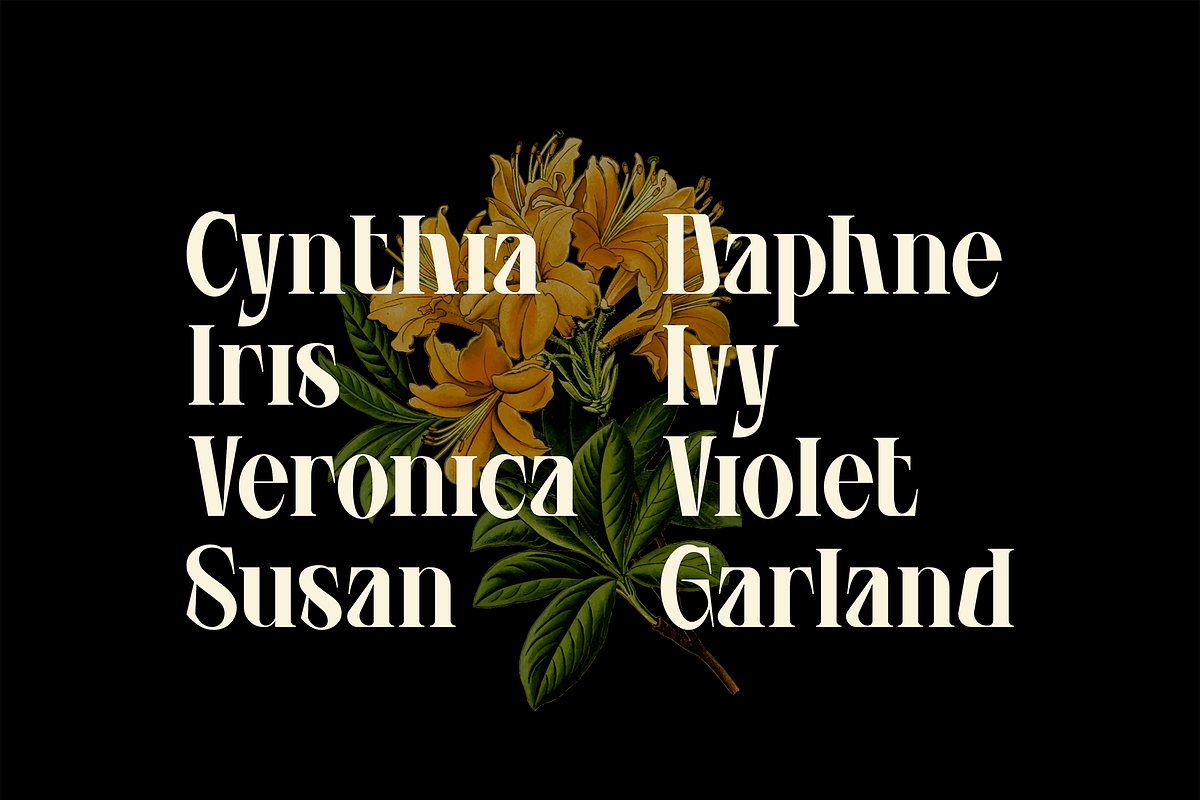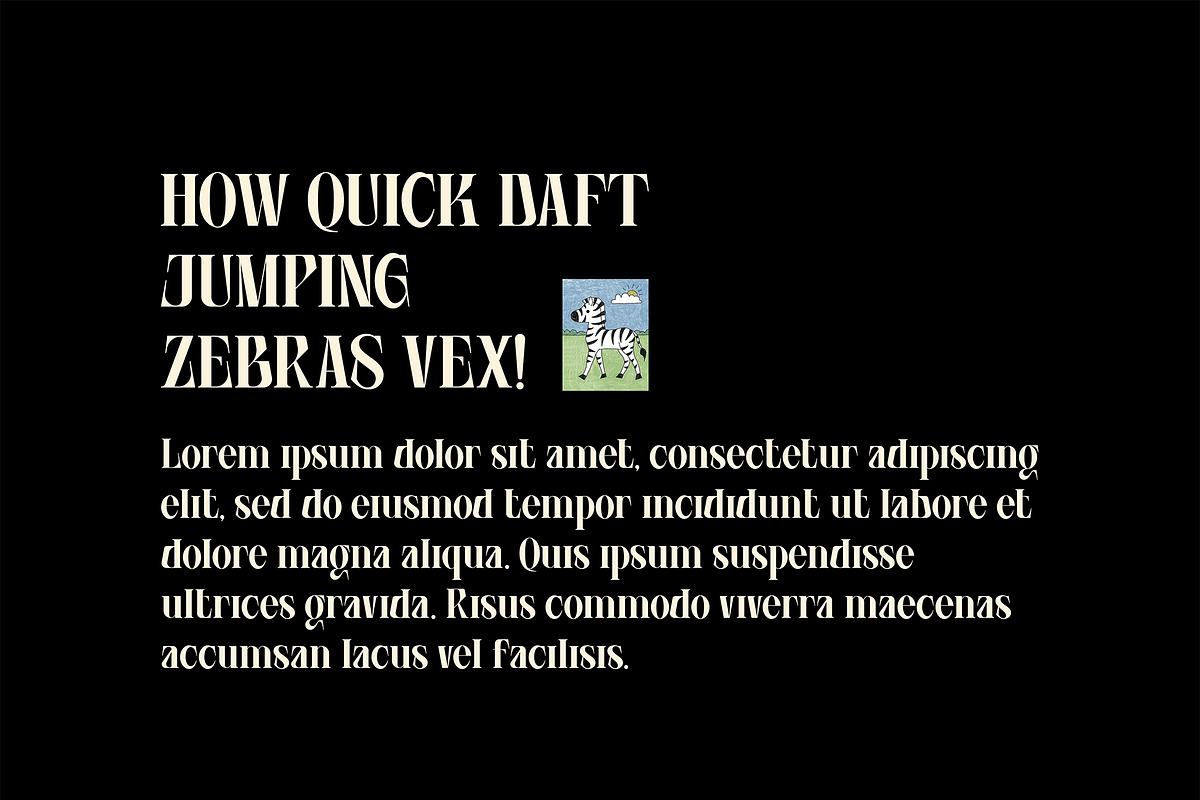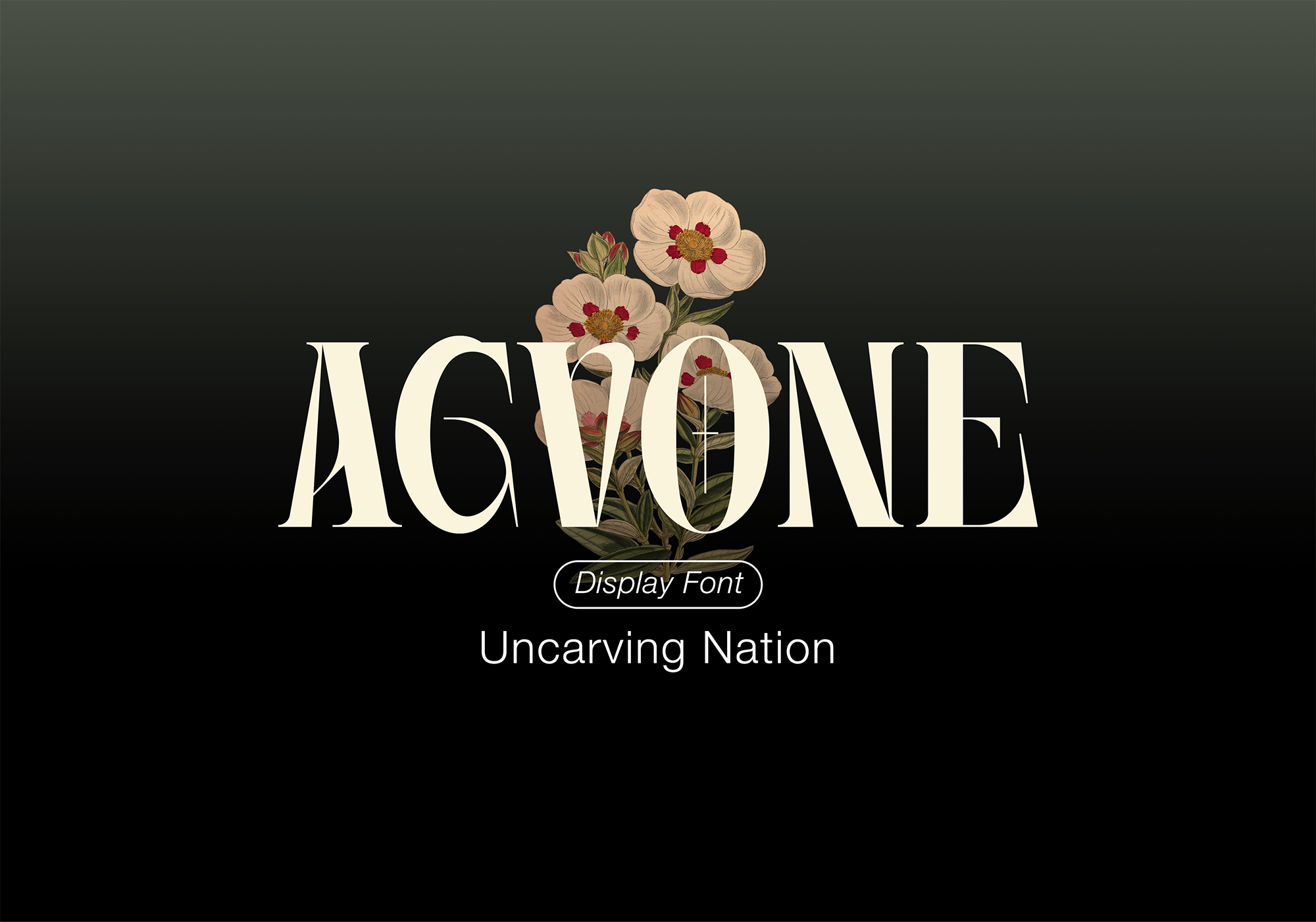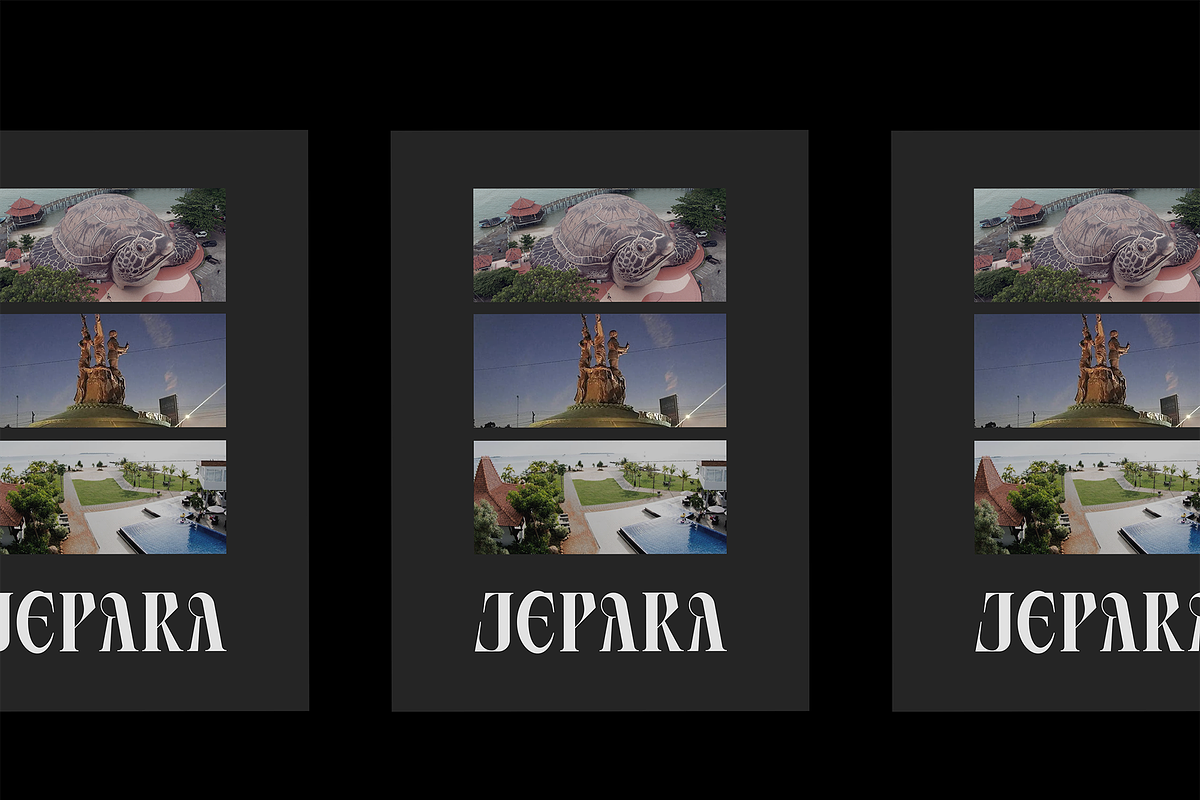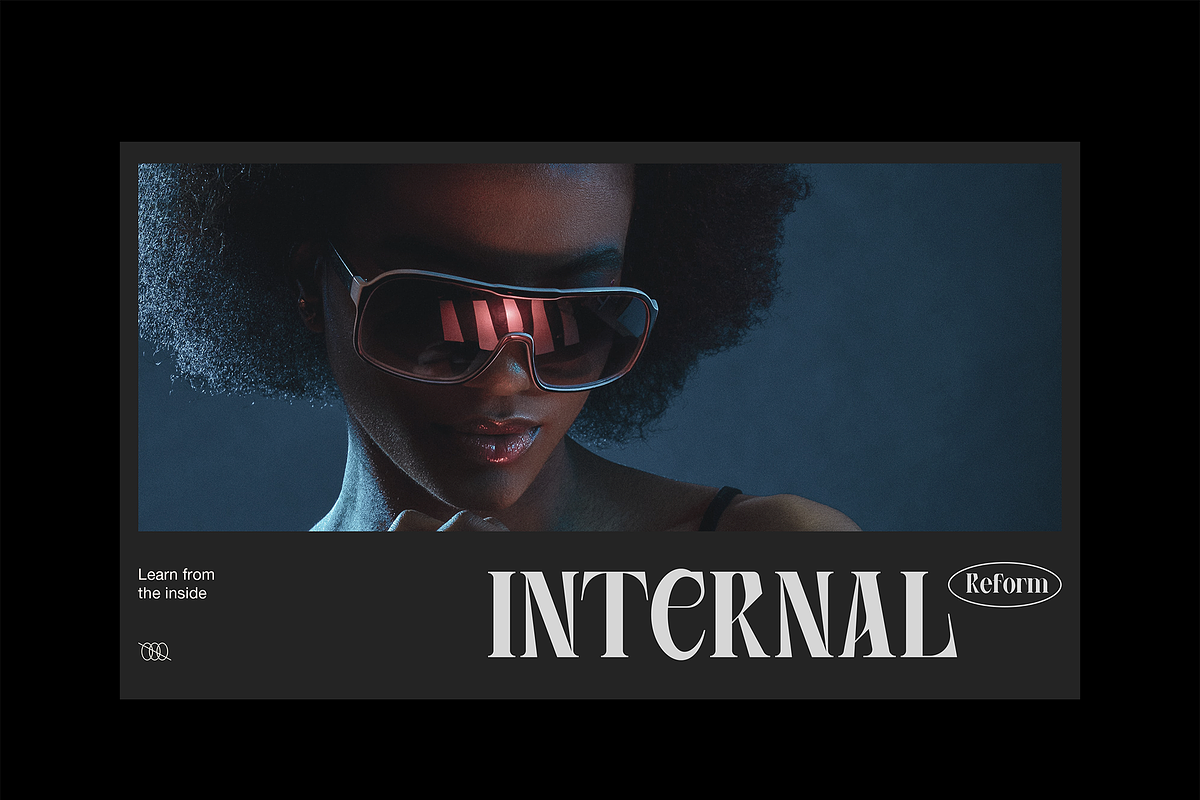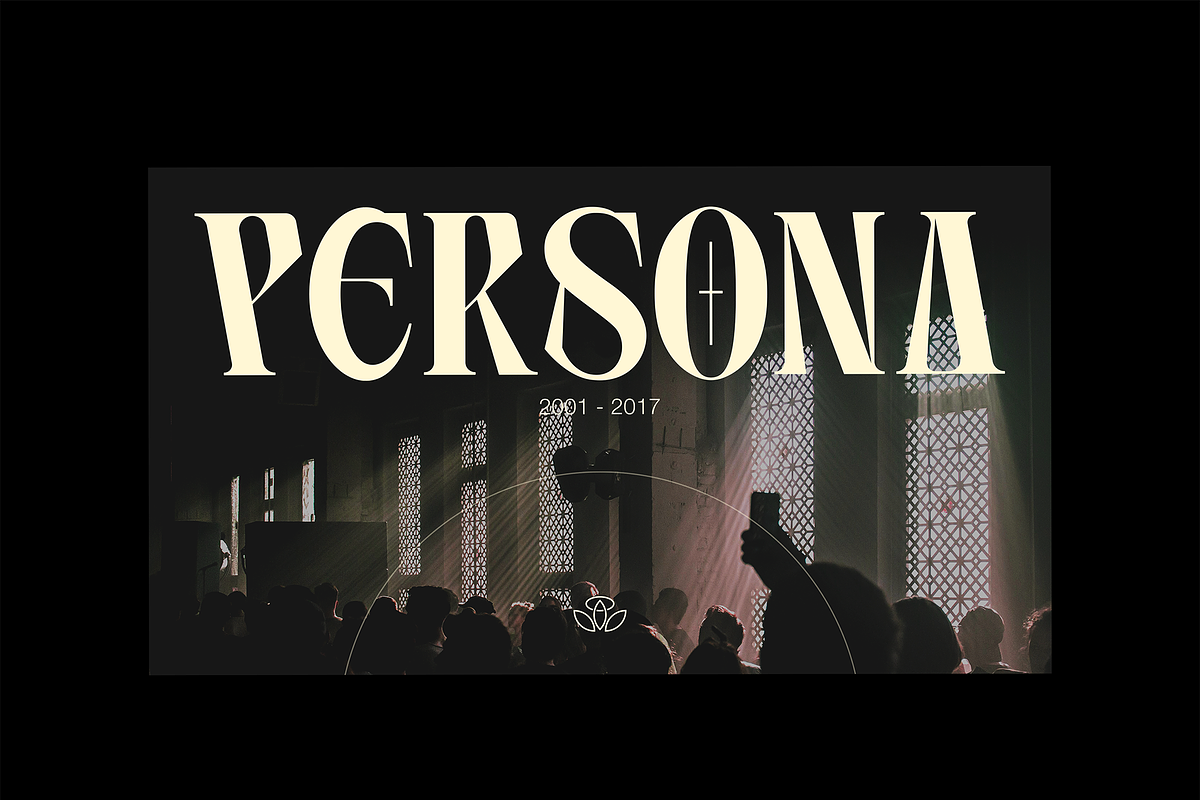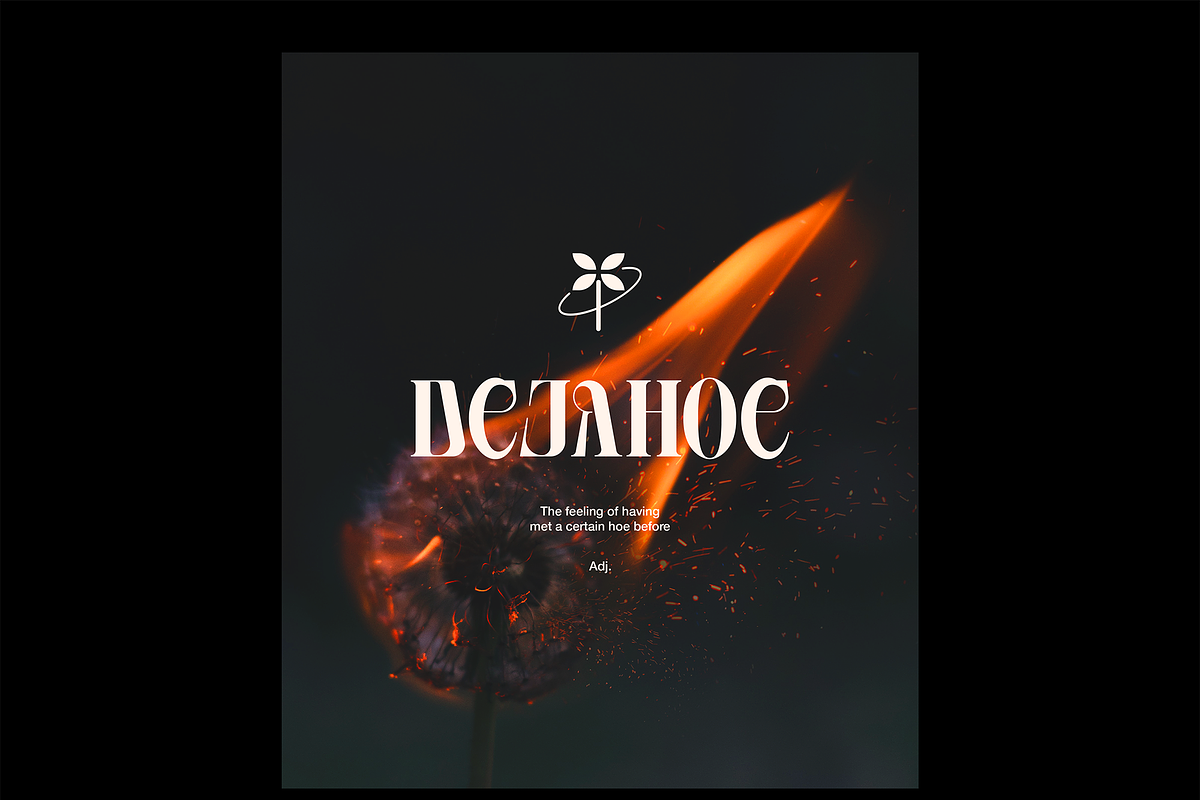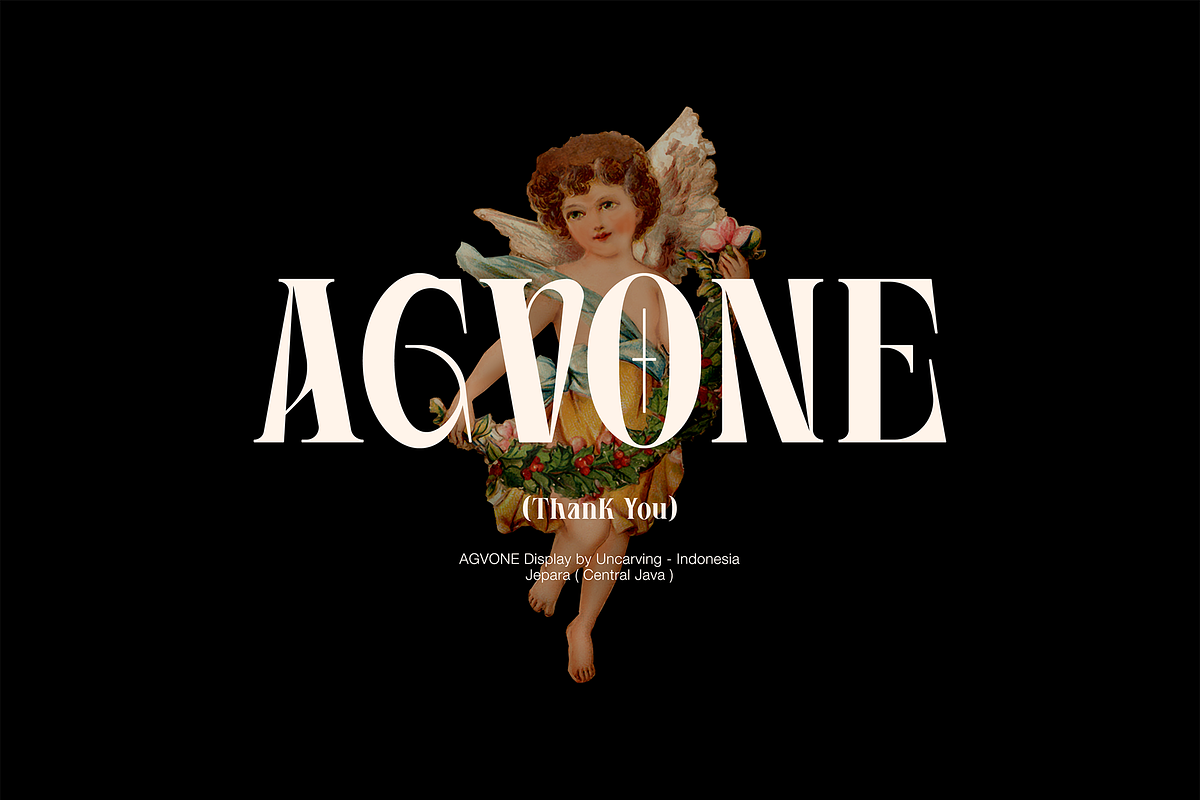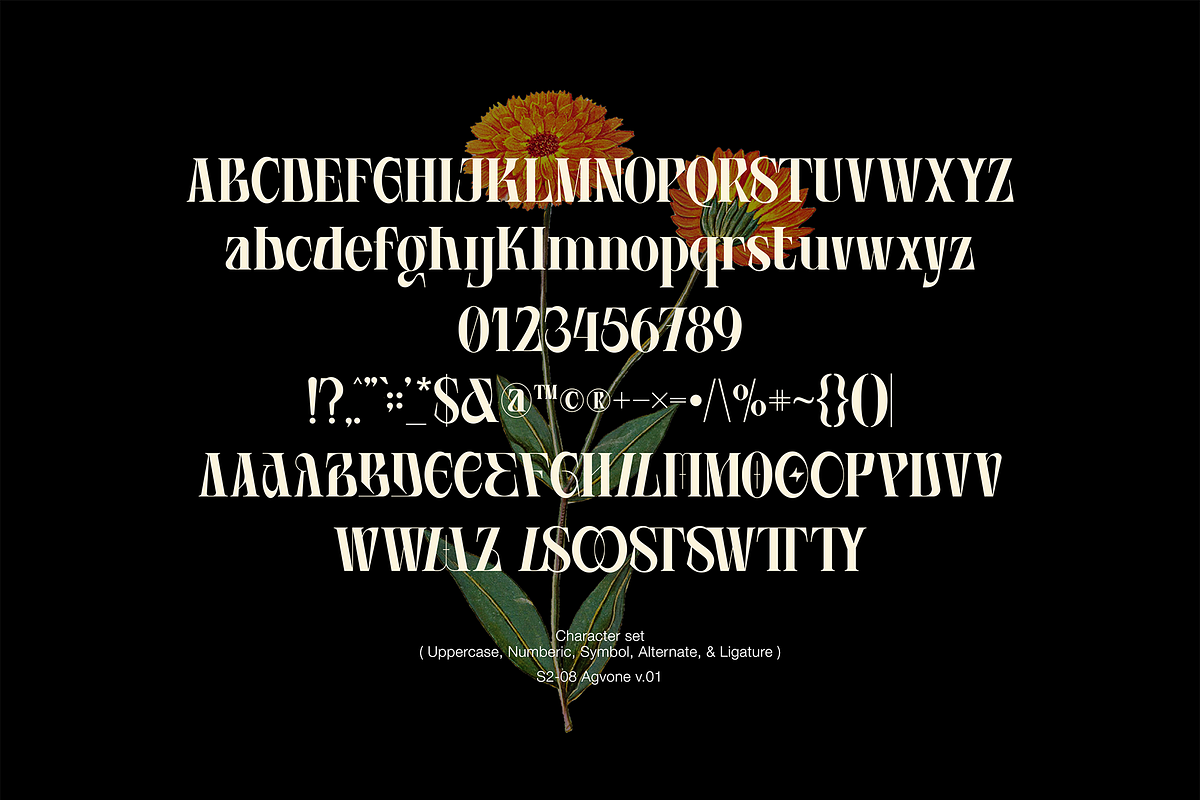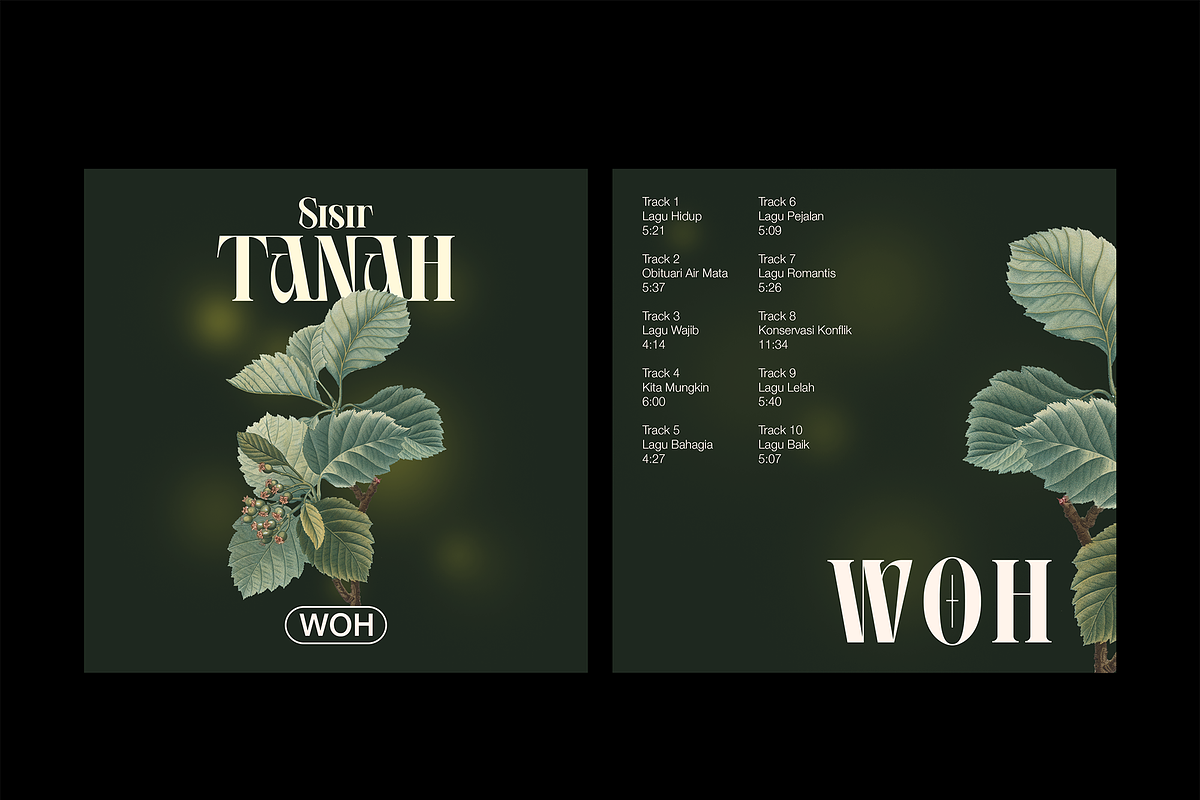
Agvone - Display Font
"AGVONE" is a font designed by uncarving Inspired by the Modern theme with futuristic touch keeping the simplicity and unique shapes Great for use in your projects related to gaming, future tech, space travel, virtual reality & much more!